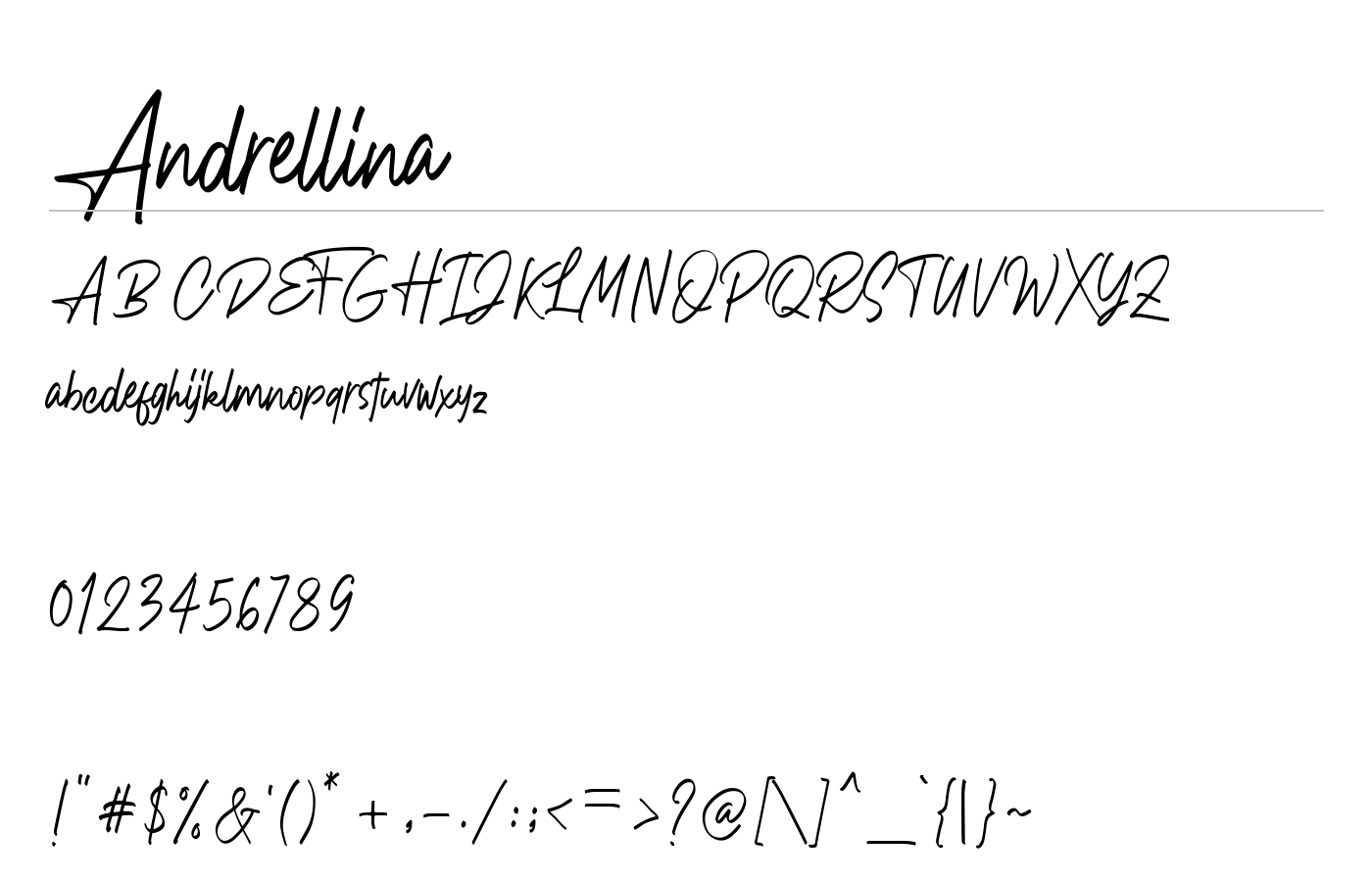
Andrellina is a stylish, handwritten script font with a casual and refined feel. Its thin, flowing strokes and slightly irregular letterforms give it a natural, personal touch, making it perfect for creative branding, invitations, and elegant editorial designs. The font’s airy spacing and distinct uppercase characters add charm and readability, ideal for adding a sophisticated yet approachable vibe.
Andrellina Font